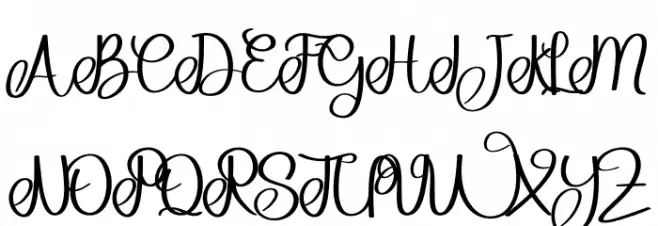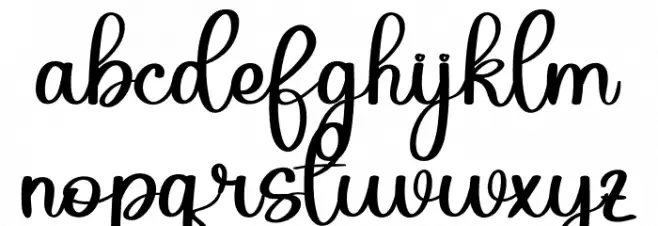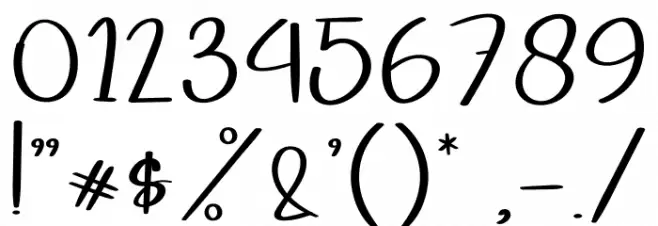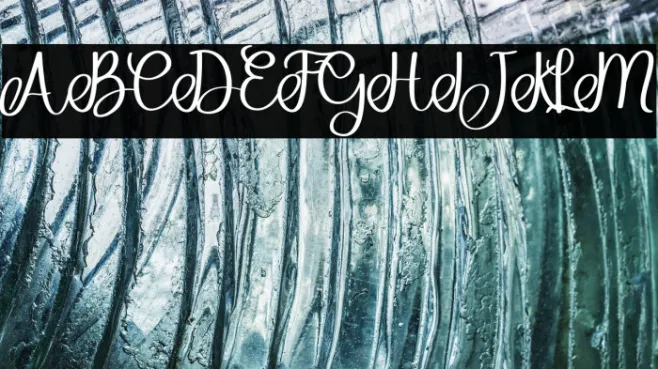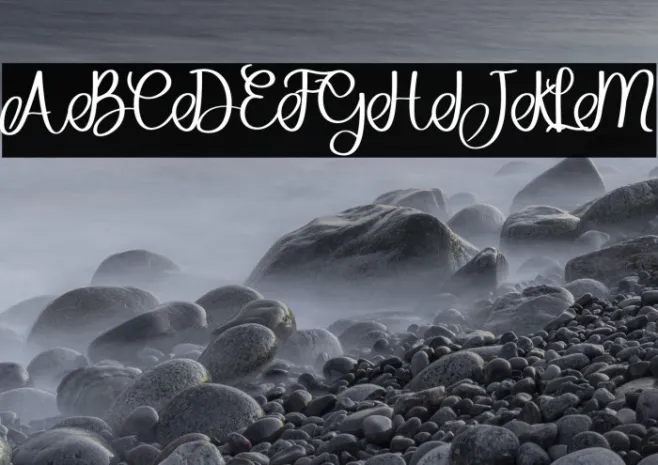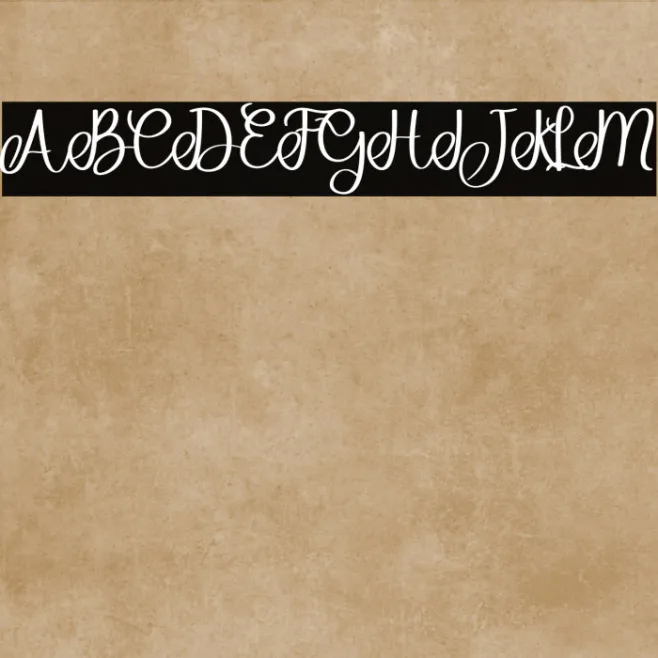
Sweet Yolanda
A playful and elegant script font with smooth curves and a handwritten style, featuring connected letters and a flowing appearance.
A playful, elegant script font with a handwritten style.
- Proposed Projects: Invitations, greeting cards, branding, and decorative projects.
- Category: Script
- Character Spacing: Tight
- Overall Style: Decorative
- Use Case: Logos, Invitations, Decorative text